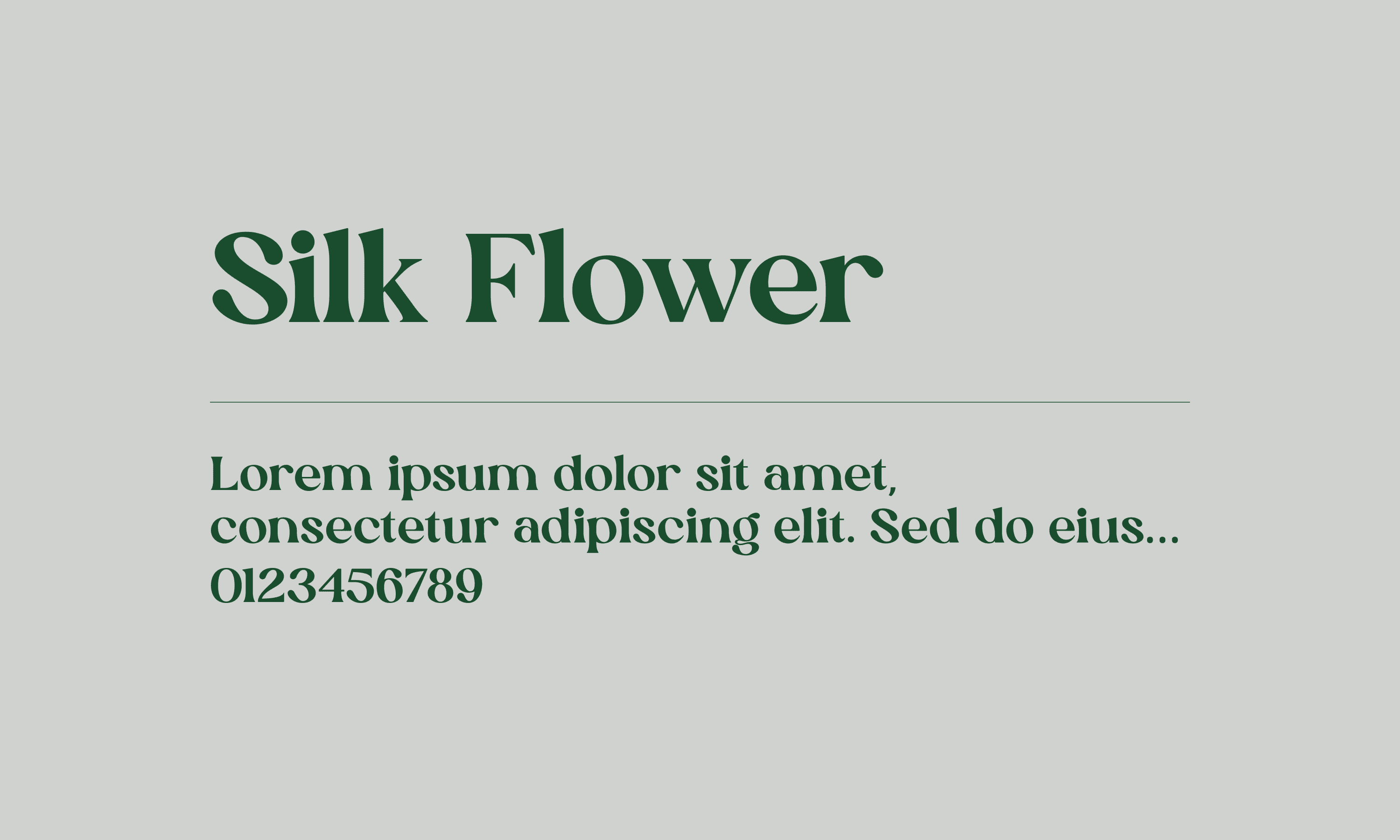
Silk Flower
This is a luxurious and charming serif font created by designer Megi Satyo Widodo. This font is rich in stylish ligature designs, inspired by fashion magazines and perfume brands.